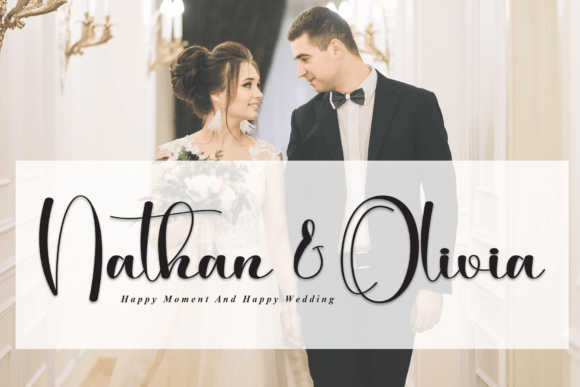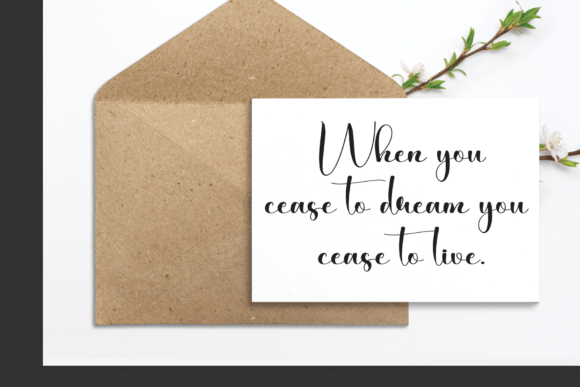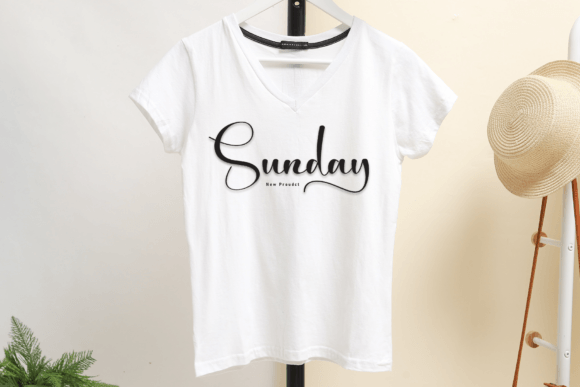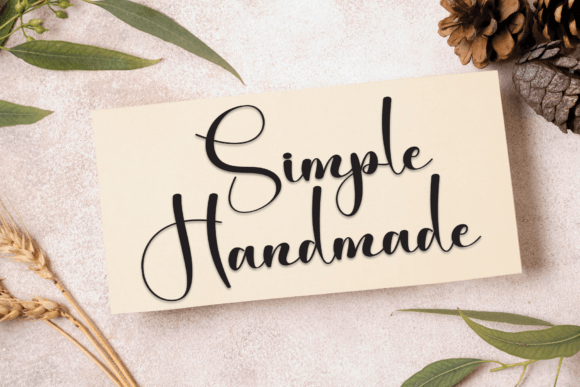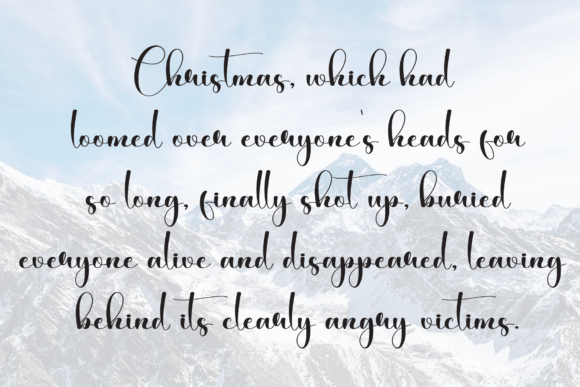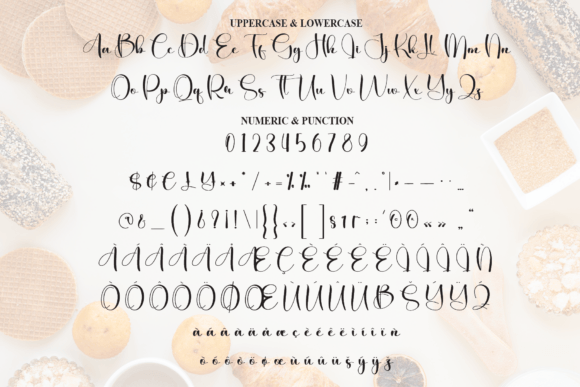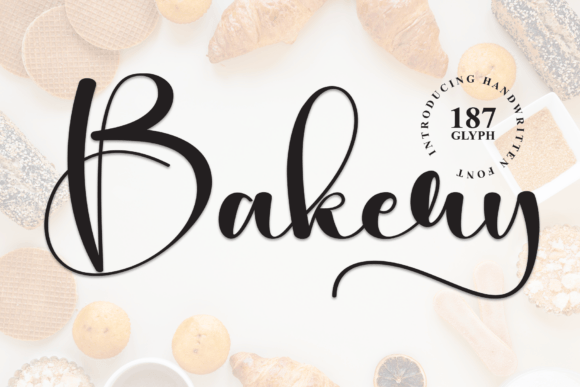
Bakery Font: The Perfect Addition to Your Bakery’s Brand
Are you a bakery owner looking for a font that captures the warm and inviting spirit of your business? Or perhaps you’re a designer searching for the perfect typography to use in your next project? Look no further than the Bakery font! This charming handwritten font is a mix of bold and thin lines, giving it a friendly and casual feel that’s perfect for menus, signs, and anything related to baked goods.
The Characteristics of Bakery Font
The Bakery font is a unique and eye-catching typeface that is sure to make your bakery stand out. Its mix of bold and thin lines gives it a playful and whimsical feel, while its handwritten nature makes it feel approachable and personal. The font is highly legible, making it perfect for use on menus, signs, and other materials where clarity is key.
Why Choose Bakery Font?
There are many reasons why the Bakery font is the perfect choice for your bakery or design project. Here are just a few:
• Unique and eye-catching: The Bakery font is unlike any other font out there. Its unique mix of bold and thin lines makes it stand out from the crowd and grabs the attention of anyone who sees it.
• Friendly and casual: The font has a warm and inviting feel that’s perfect for bakeries, cafes, and other businesses that want to create a cozy and welcoming atmosphere.
• Highly legible: Despite its playful nature, the Bakery font is highly legible and easy to read, making it perfect for use on menus, signs, and other materials where clarity is key.
• Versatile: The Bakery font can be used in a variety of contexts, from menus and signs to packaging and marketing materials.
How to Use Bakery Font in Your Design
Using the Bakery font in your design is easy! Here are a few tips to get you started:
• Pair it with a sans-serif font: For a classic look, pair the Bakery font with a sans-serif font like Arial or Helvetica.
• Use it for headings: The Bakery font is perfect for use as a heading font, where its bold and playful nature can really shine.
• Experiment with colors: The Bakery font looks great in a variety of colors, from warm and rich tones like red and orange to cool and calming tones like blue and green.
Bakery Font in the World of Crafting
The Bakery font isn’t just for bakeries! Crafters and makers of all kinds can use this font to add a personal touch to their projects. Here are a few ideas:
• Party invitations: Use the Bakery font to create custom party invitations that are sure to impress.
• Signs and banners: The Bakery font is perfect for use on signs and banners, where its bold and playful nature can really stand out.
• Packaging: Add a personal touch to your packaging with the Bakery font, which can be used on labels, stickers, and more.
In conclusion, the Bakery font is a charming and versatile typeface that’s perfect for bakeries, designers, and crafters of all kinds. Its unique mix of bold and thin lines gives it a friendly and casual feel that’s sure to make your project stand out. Whether you’re looking to create a menu, sign, or packaging material, the Bakery font is a great choice. So why not give it a try and see the difference it can make?